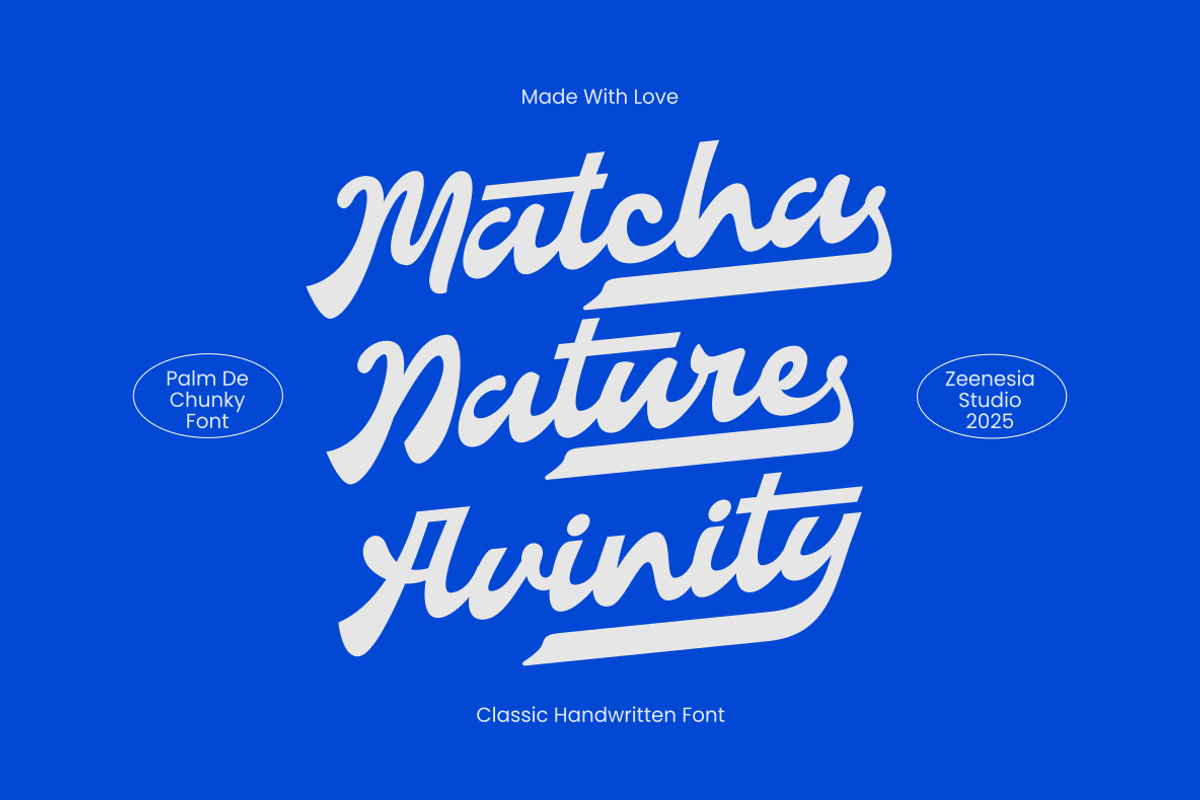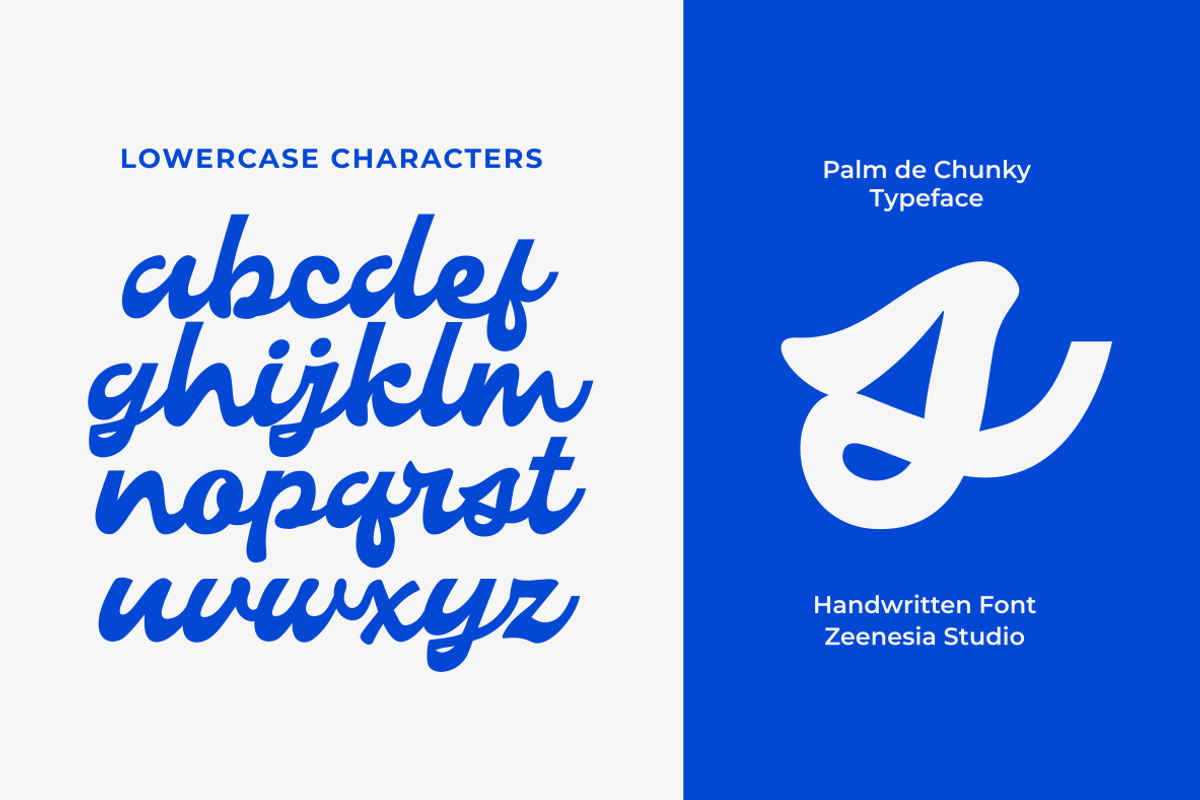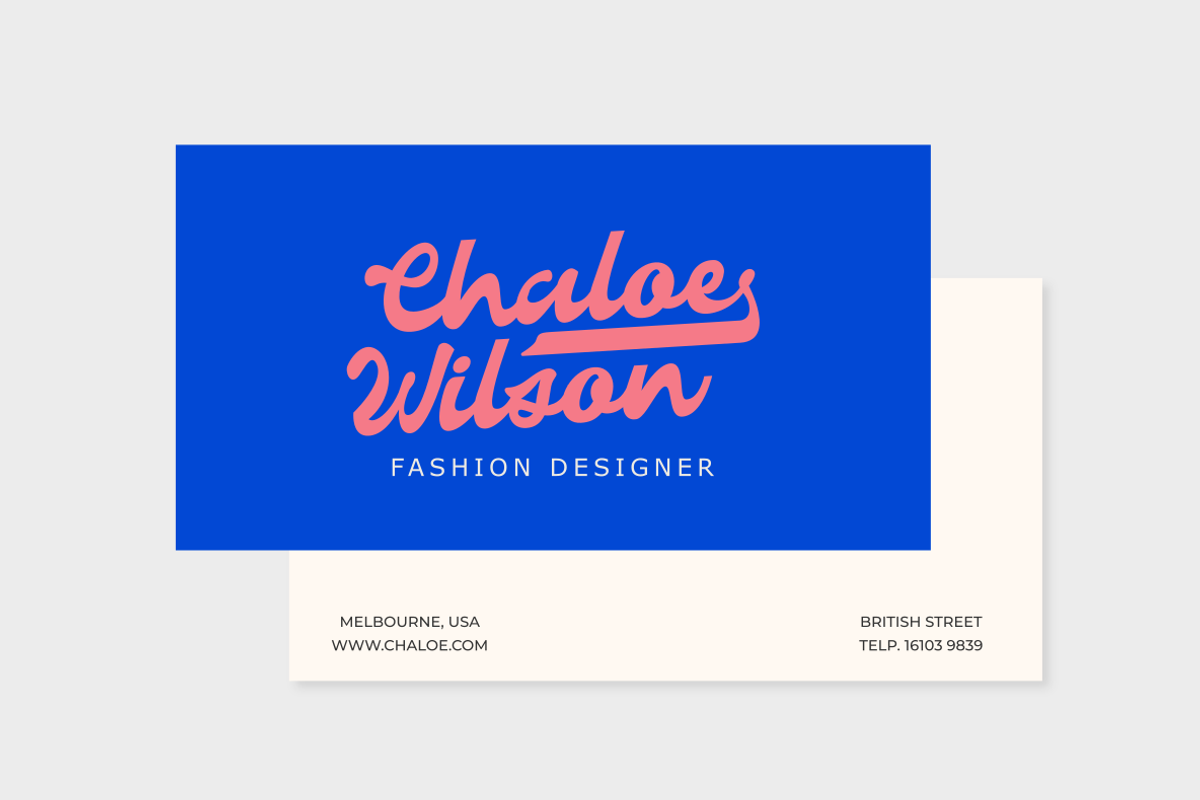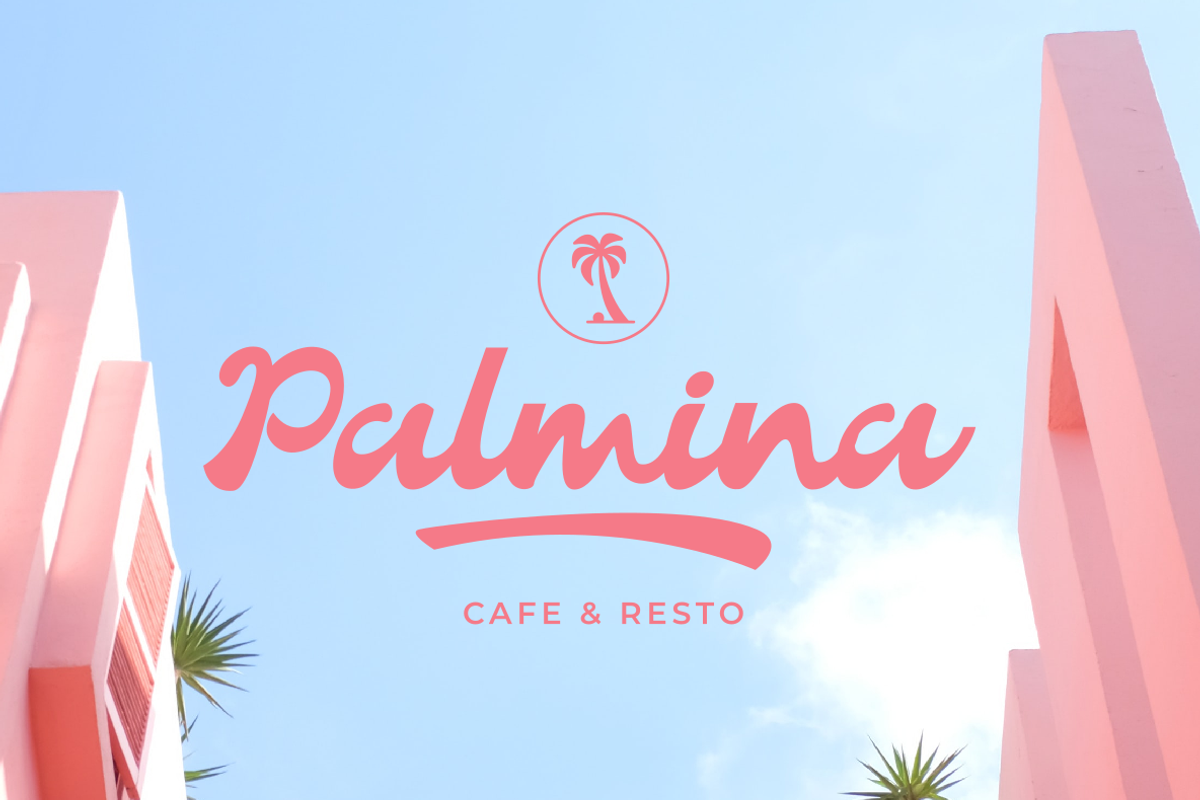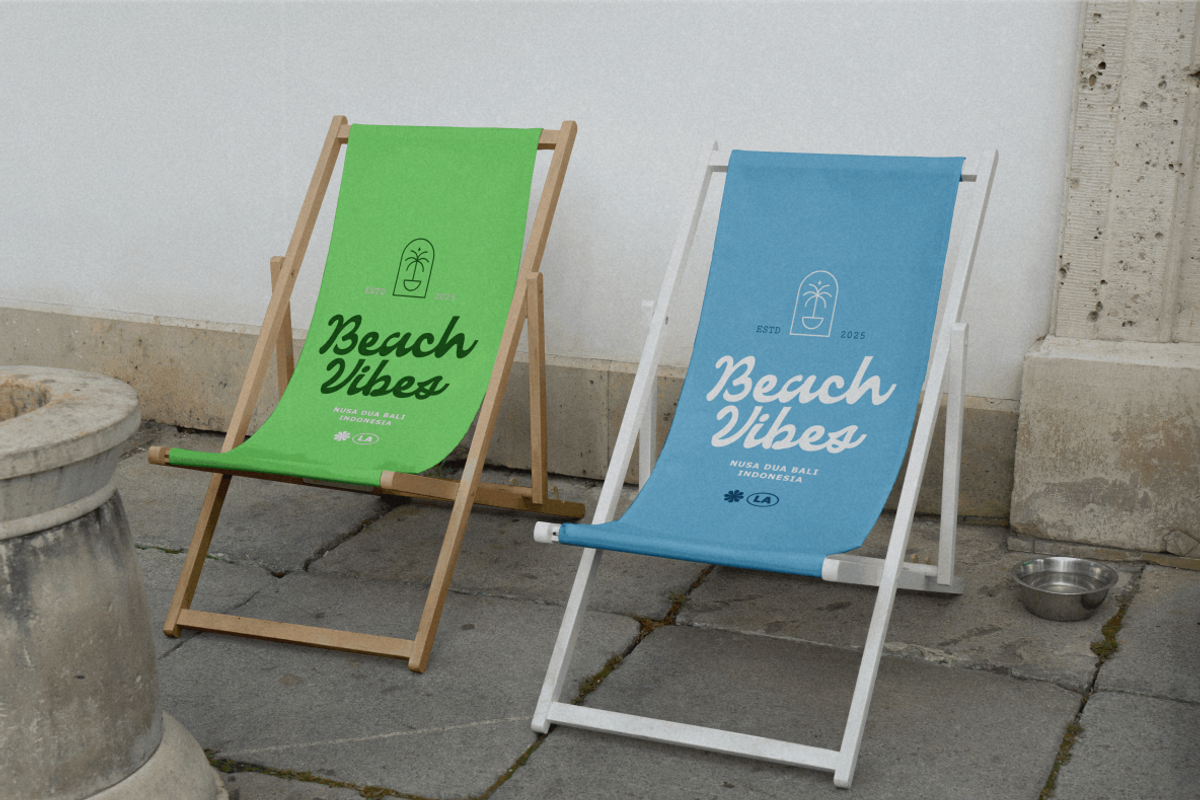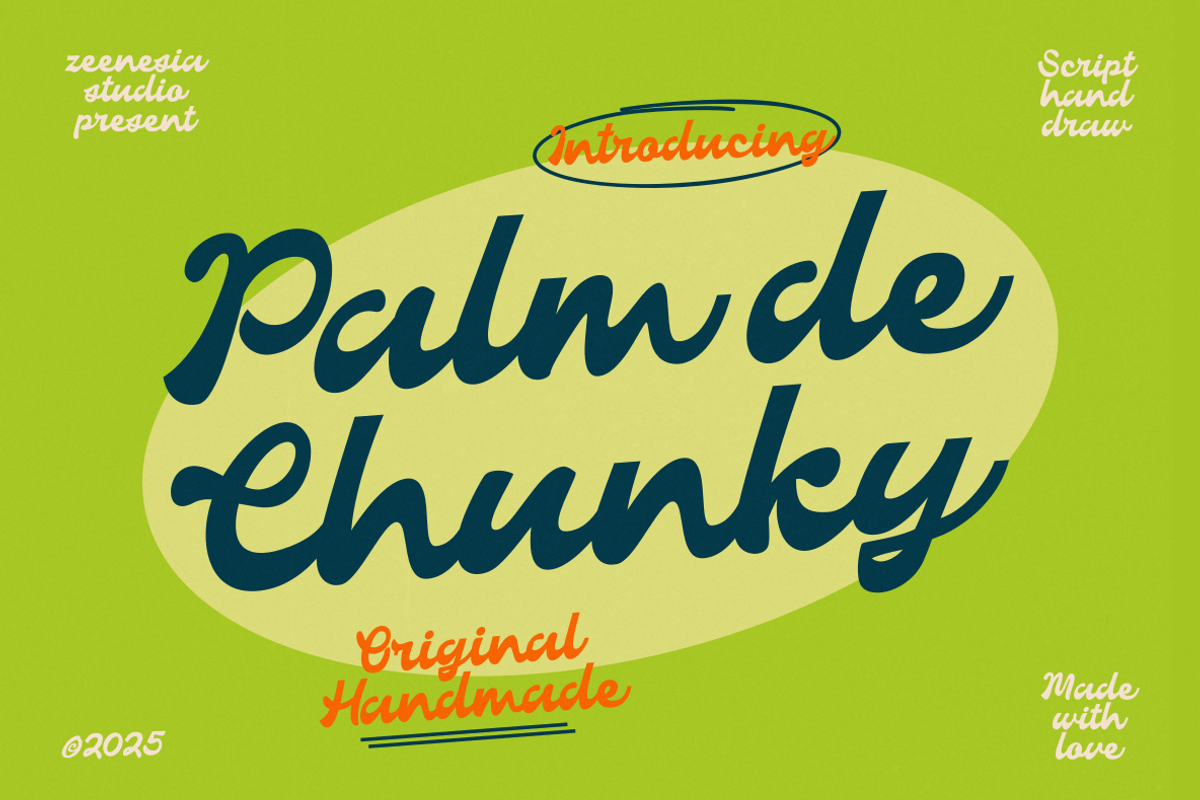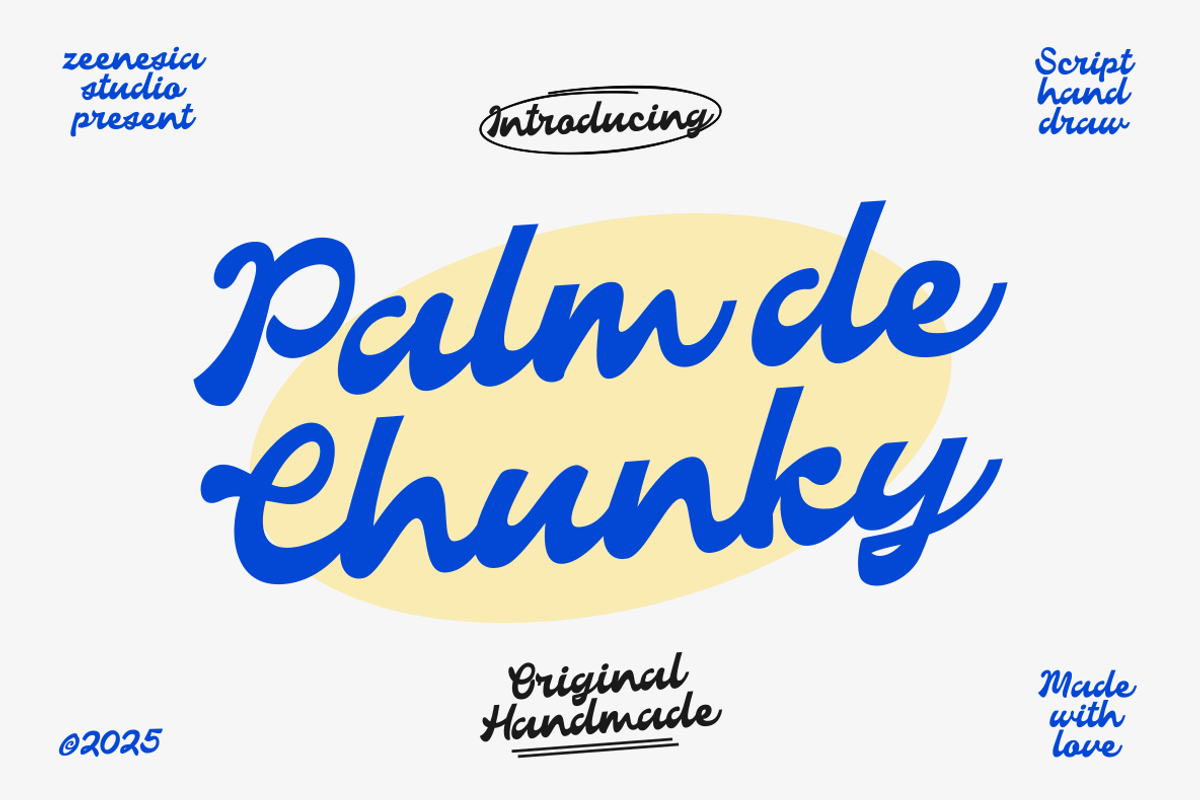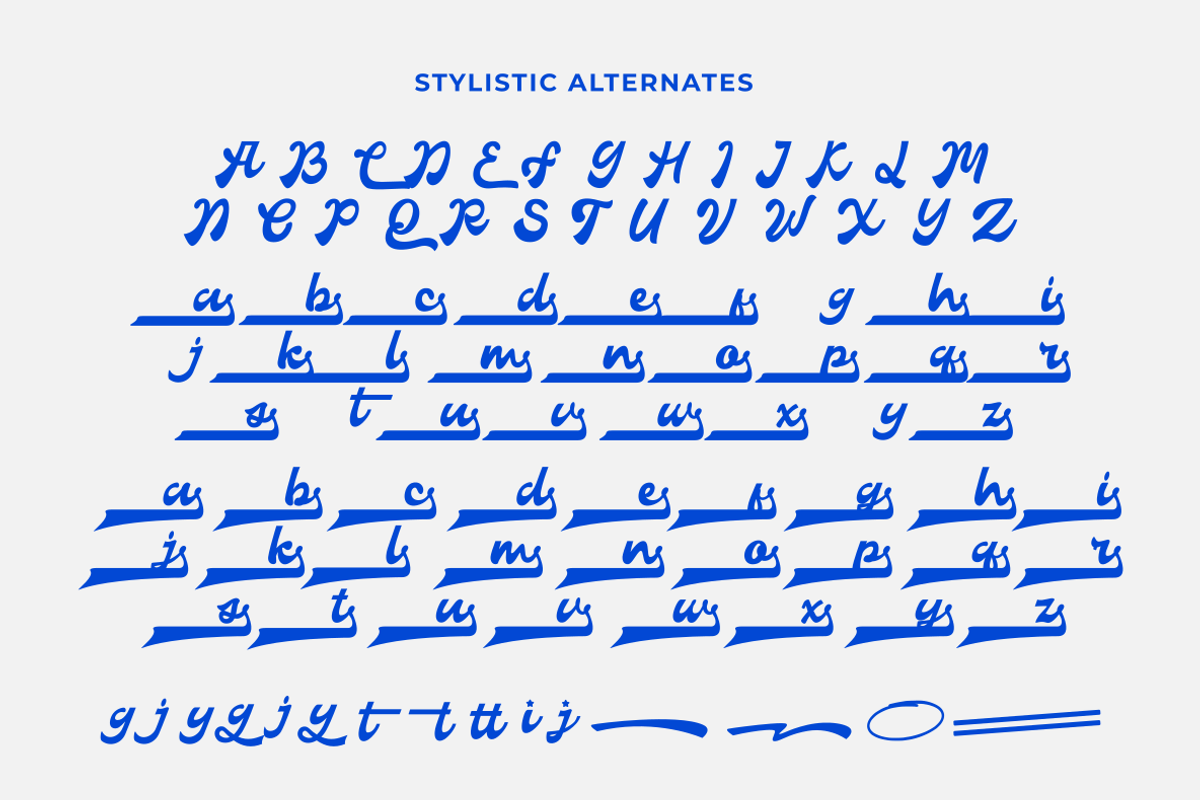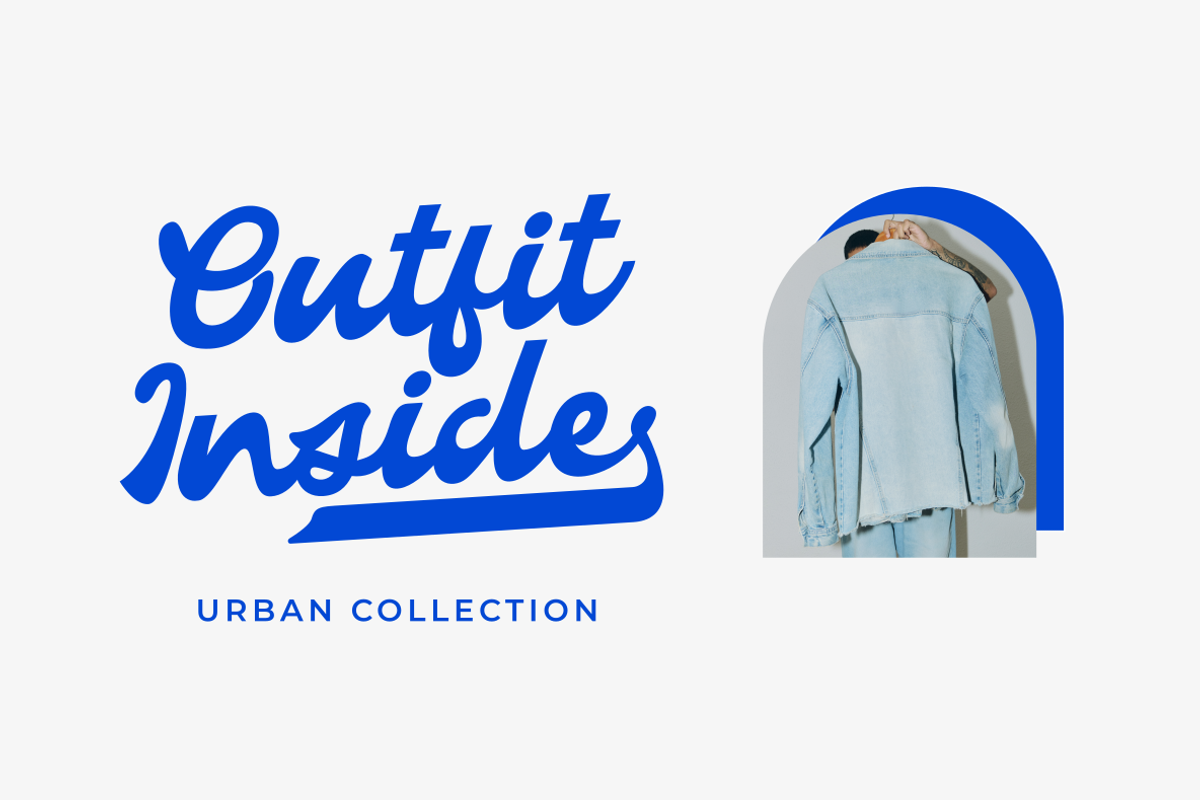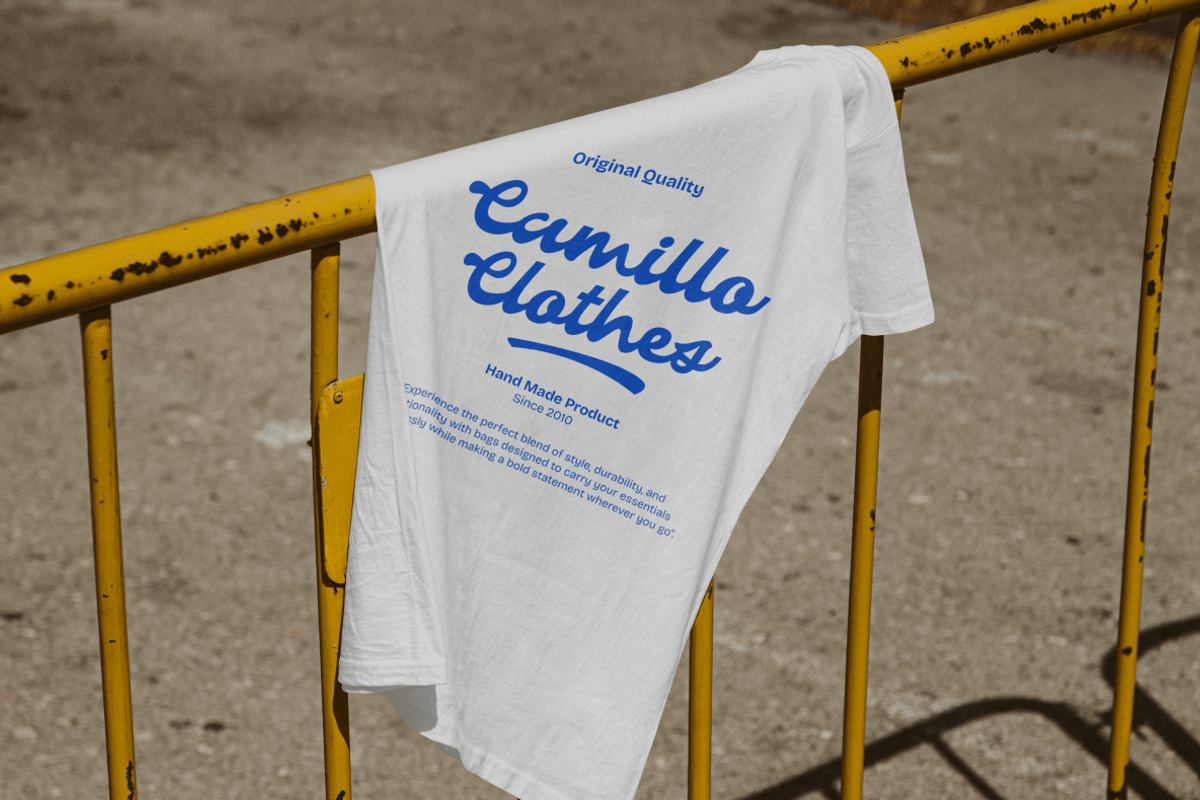
Palm de Chunky
Palm de Chunky is a hand-drawn script font that captures the authentic charm of handwritten lettering. Each stroke is crafted to feel natural vibe to your designs. With its chunky strokes and smooth curves. Ideal for logos, posters, packaging, social media, and creative branding, Palm de Chunky delivers a friendly charm that stands out while staying stylish. Every curve is crafted with love, making it a versatile choice for projects that need both personality and authenticity.